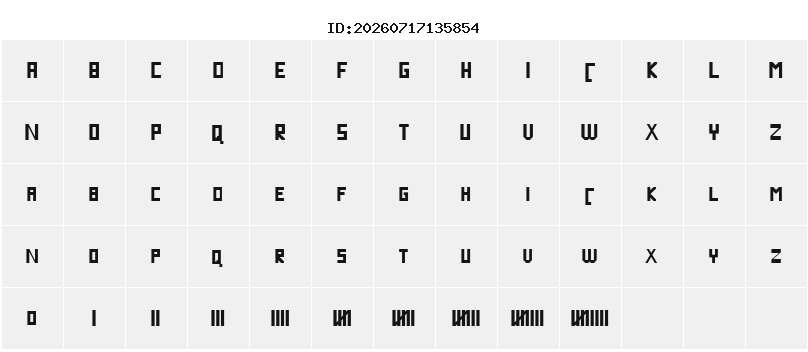
Blockline Preview
• Font Name: Blockline
• Full Font Name: Blockline
• Designer: loosydesign (fabian pfeifhofer)
About Blockline.ttf
Blockline.ttf is a modern, elegant sans-serif font designed for ultimate readability and visual harmony. Perfect for branding, headlines, web design, and print materials.